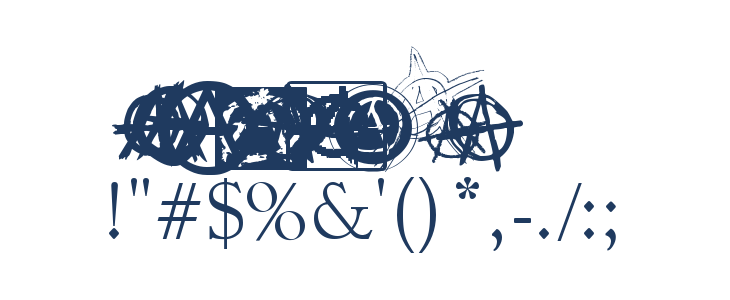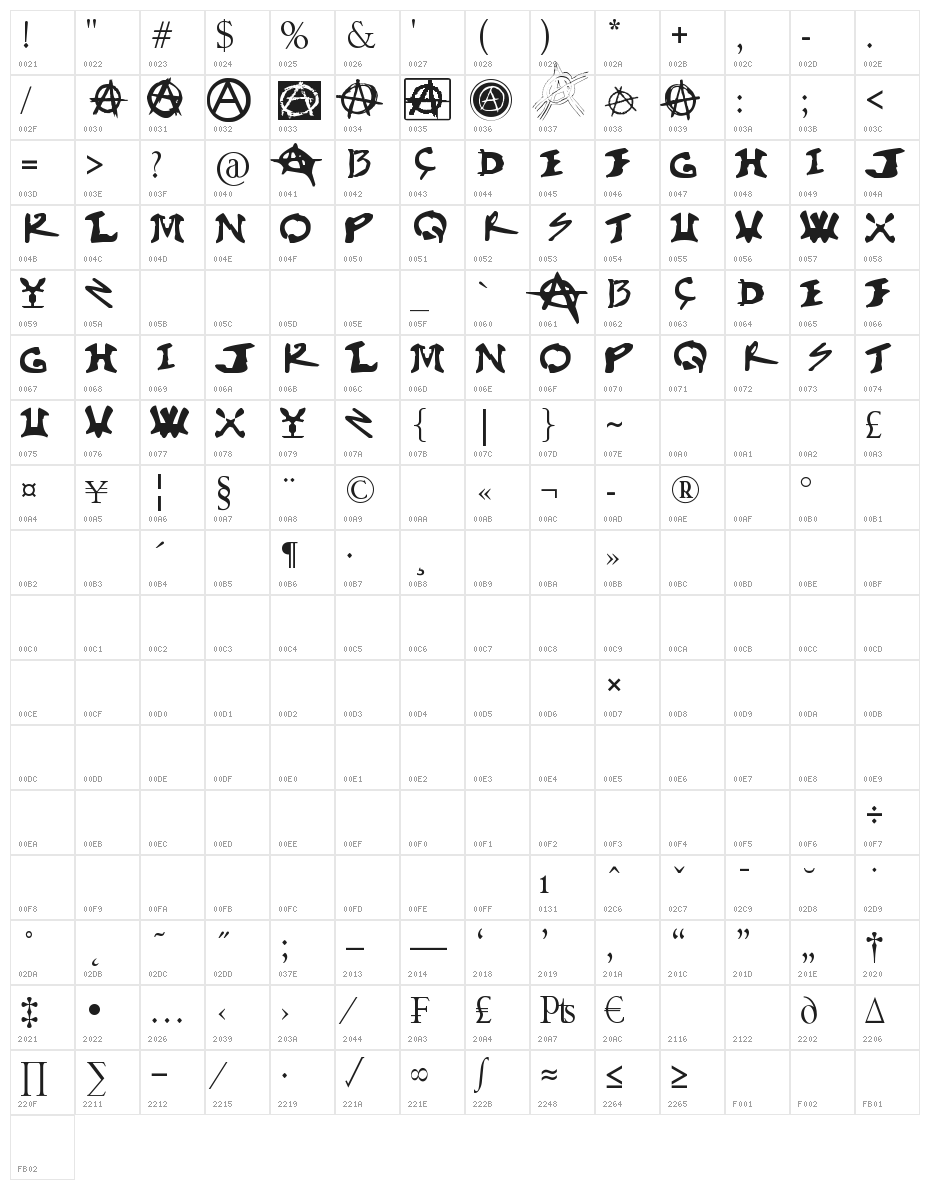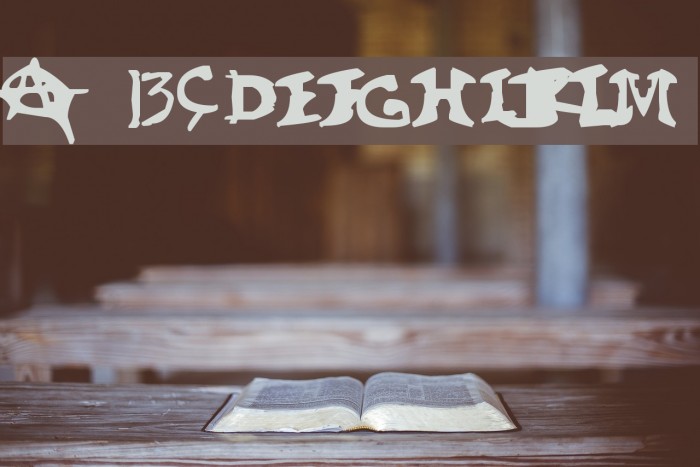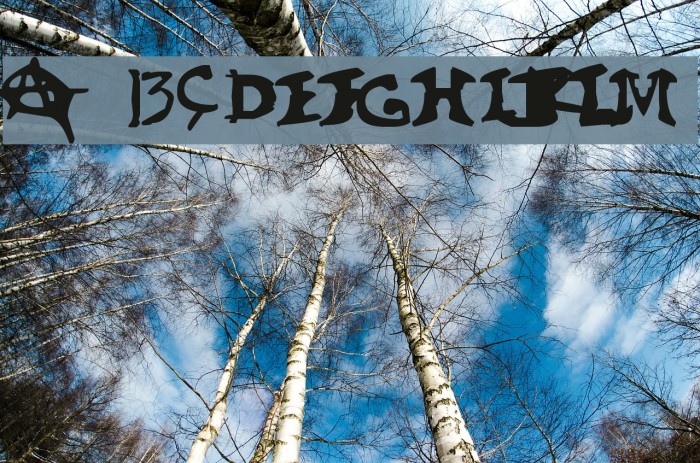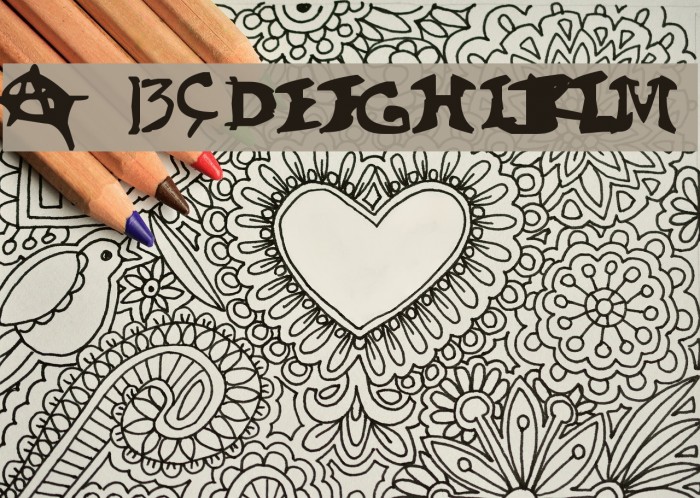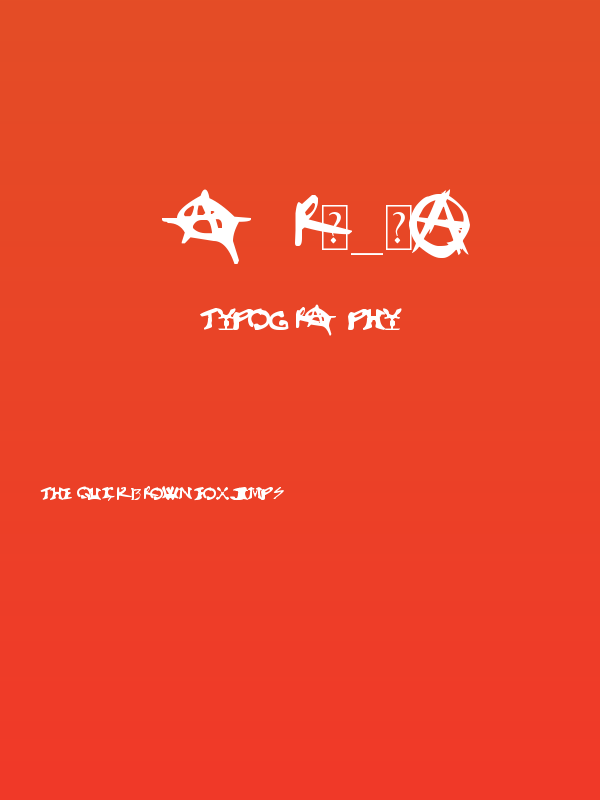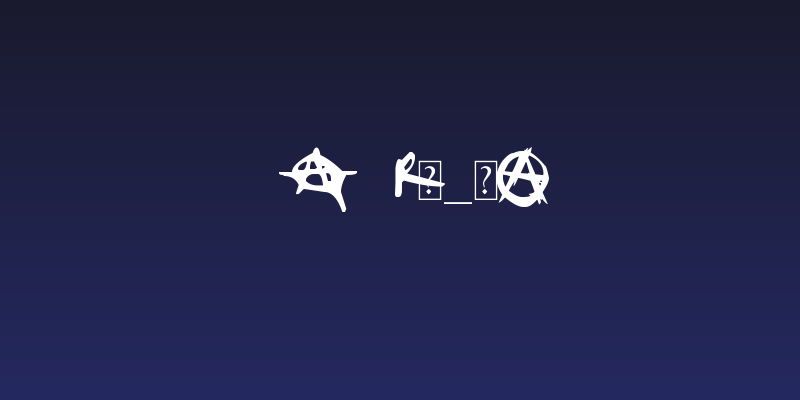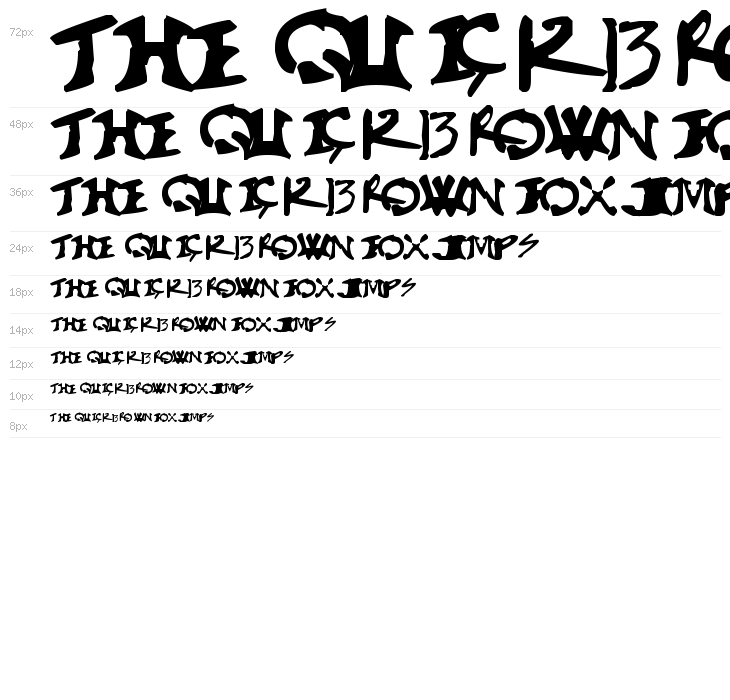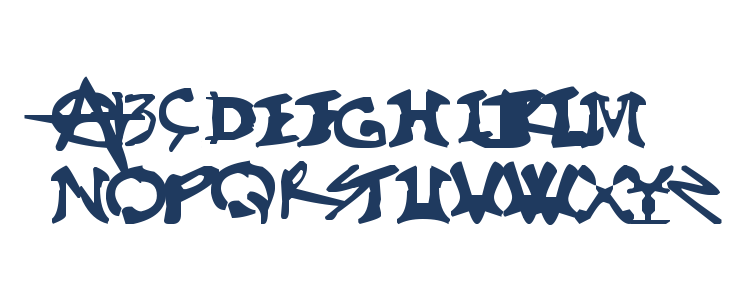
This font features a bold and rebellious style, characterized by its graffiti-like appearance and anarchy symbols integrated into the letterforms. The letters are irregular and dynamic, with sharp angles and varying stroke widths that convey a sense of movement and chaos. The uppercase and lowercase letters maintain a consistent style, while the numbers and special characters are equally expressive, enhancing the overall edgy aesthetic. This font is designed to stand out and make a statement, perfect for projects that require a bold and unconventional look.
Overall StyleRebellious, Edgy, Urban
Use CaseLogos, Posters, Album Covers
Proposed ProjectsIdeal for punk rock album covers, street art murals, protest posters, and edgy fashion branding.